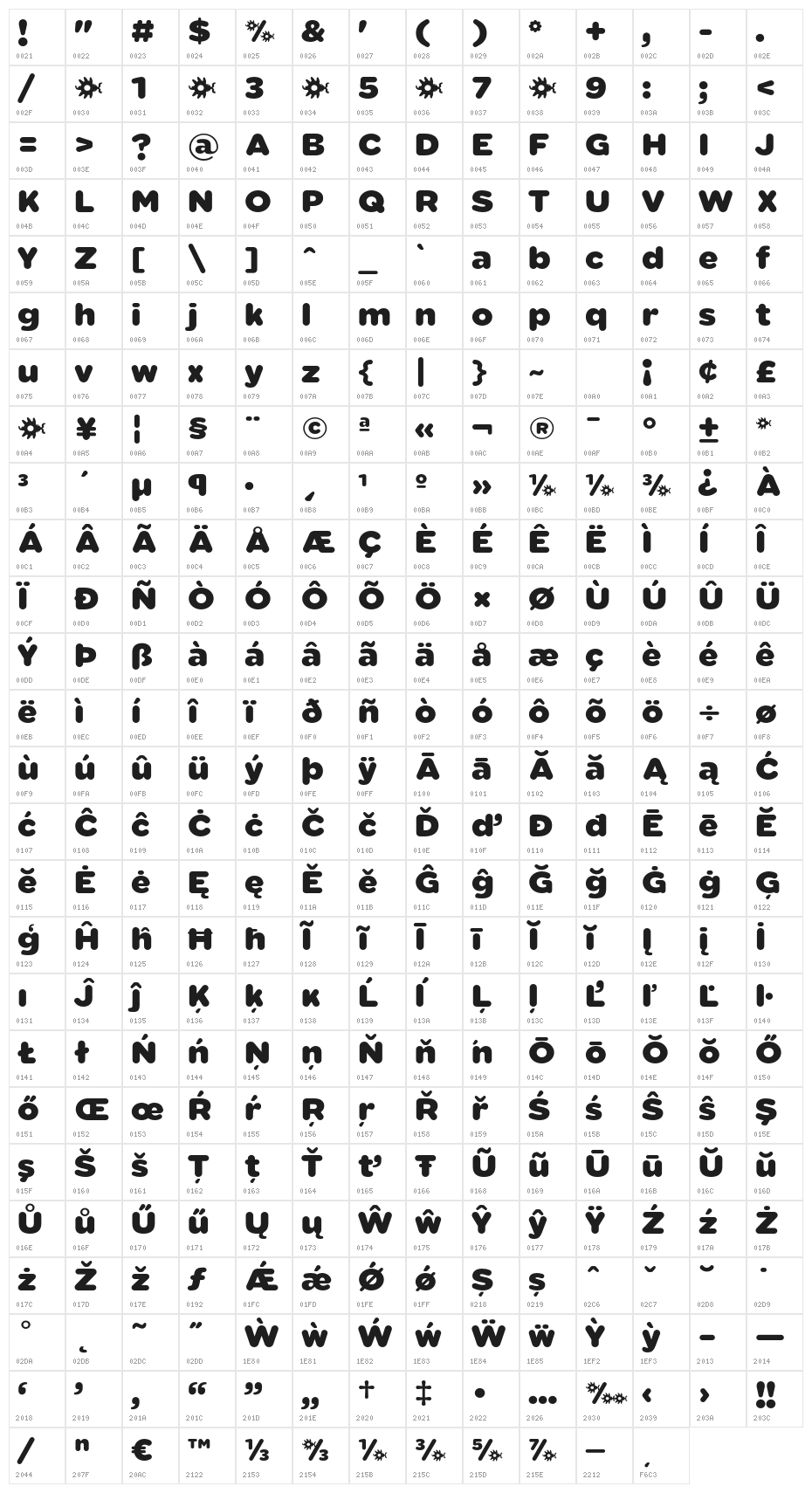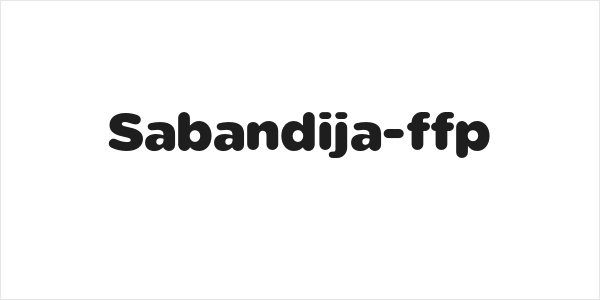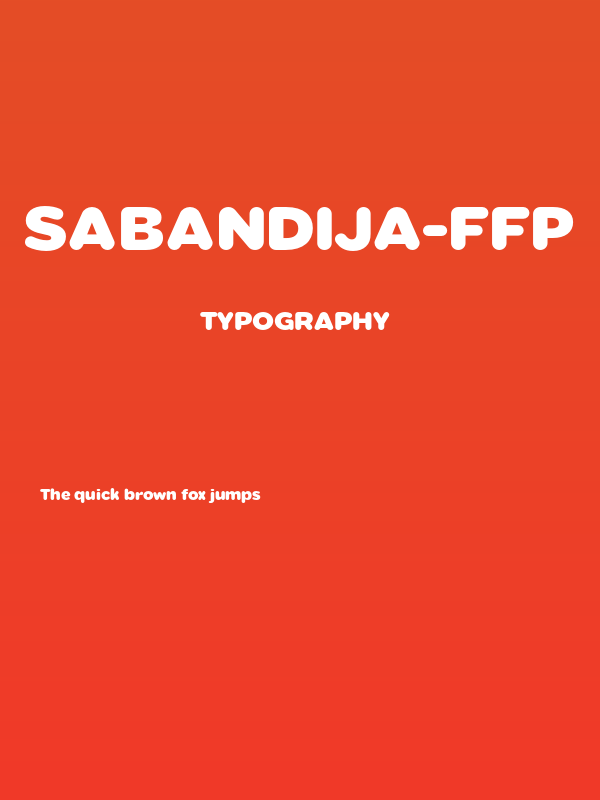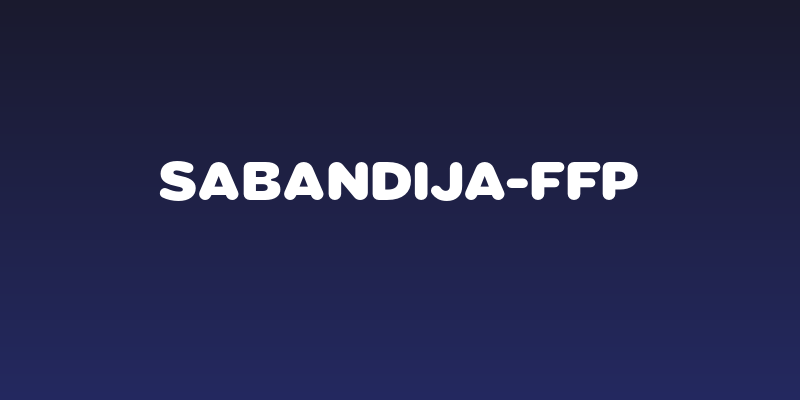
Sabandija-ffp Font
Sabandija-ffp Description
This font features a bold and playful design with rounded edges, giving it a friendly and approachable appearance. The characters are uniformly thick, contributing to a cohesive and solid look. The numbers and special characters incorporate unique decorative elements, adding a whimsical touch. Its boldness and rounded forms make it highly legible and suitable for attention-grabbing designs. The font's style is consistent across uppercase, lowercase, numbers, and symbols, ensuring a harmonious visual experience.
Overall StylePlayful, Modern
Proposed ProjectsIdeal for children's books, playful branding, posters, and creative advertising campaigns.